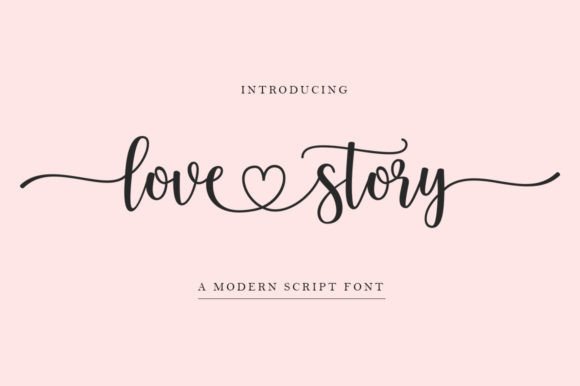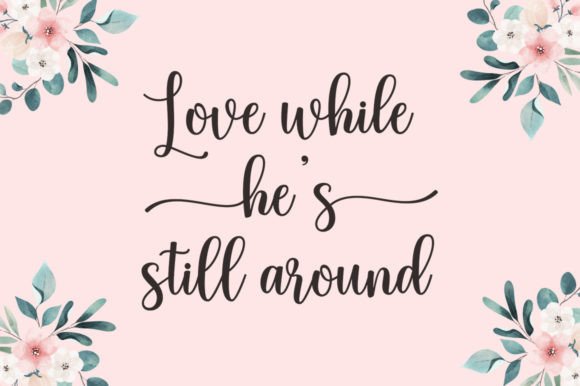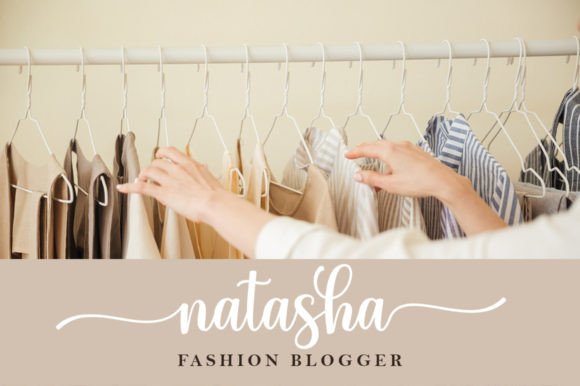
Love Story Font
Love Story is a new modern script font with an irregular baseline. This style is trendy and feminine. Love Story looks beautiful for branding, logos, wedding goods, greeting cards, fashion, lookbooks, marketing promotions.